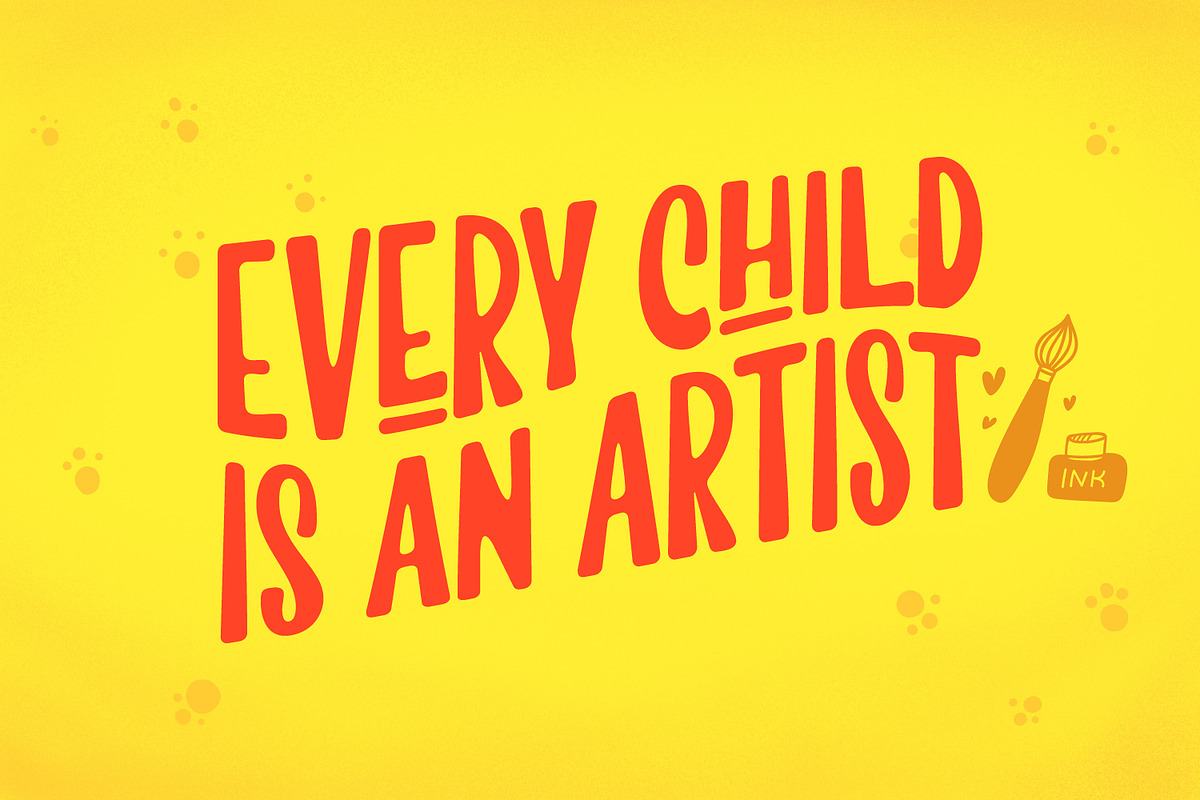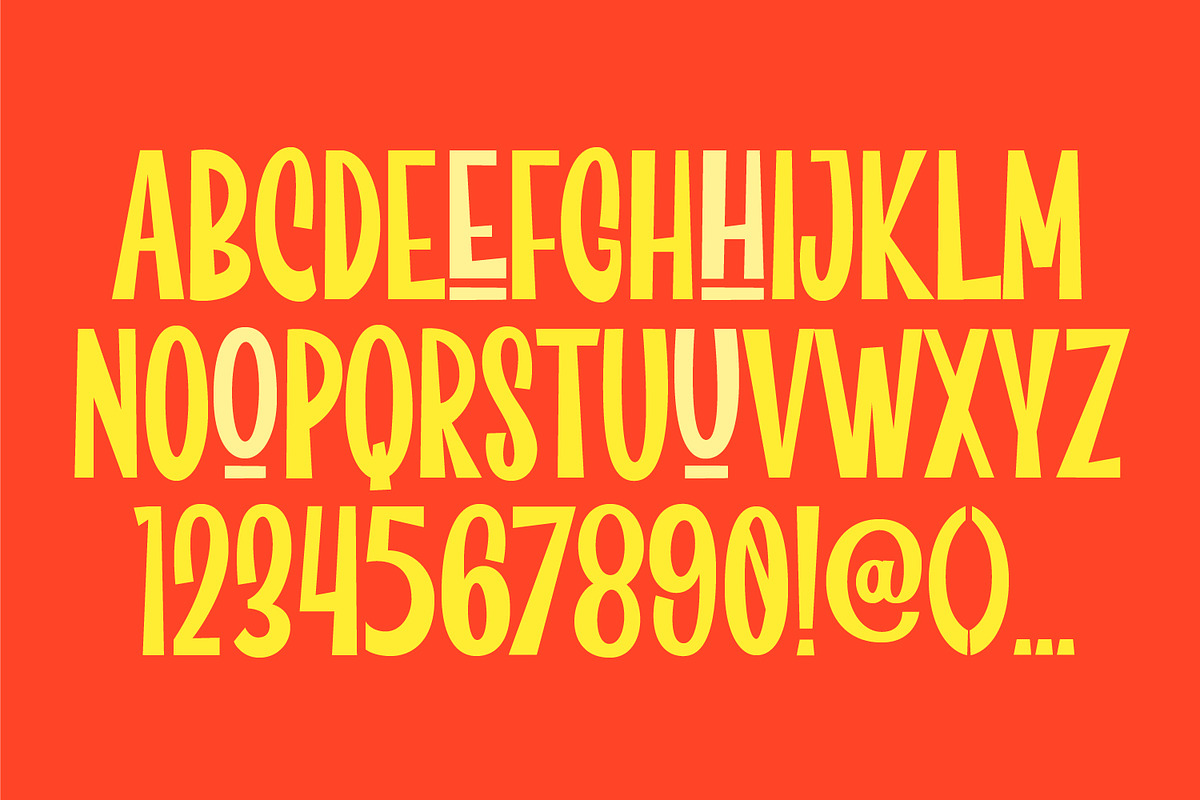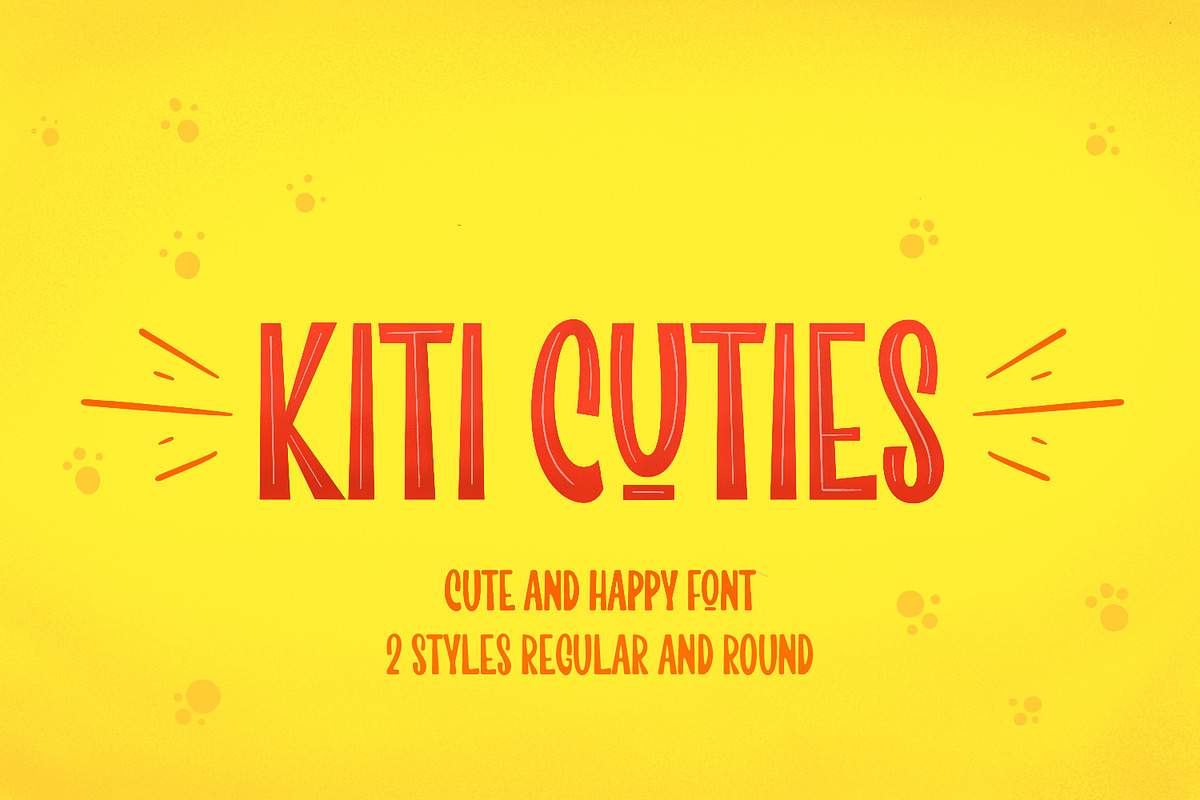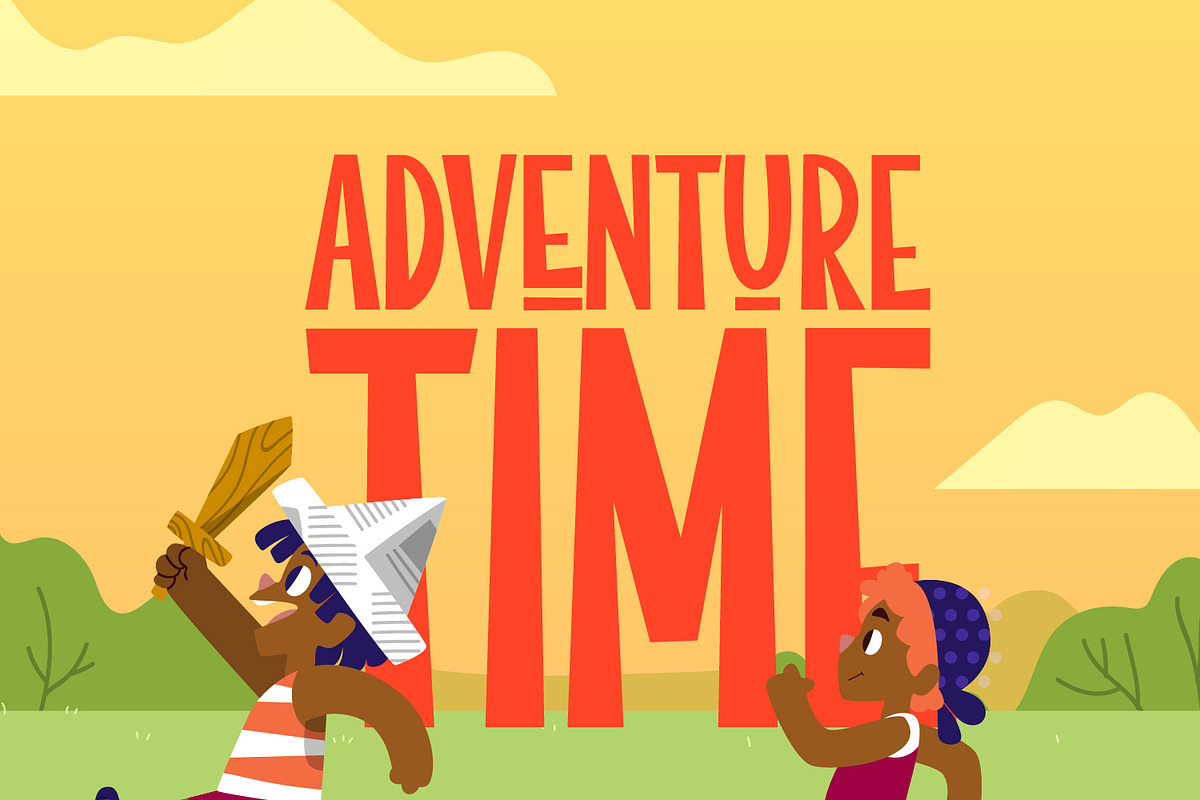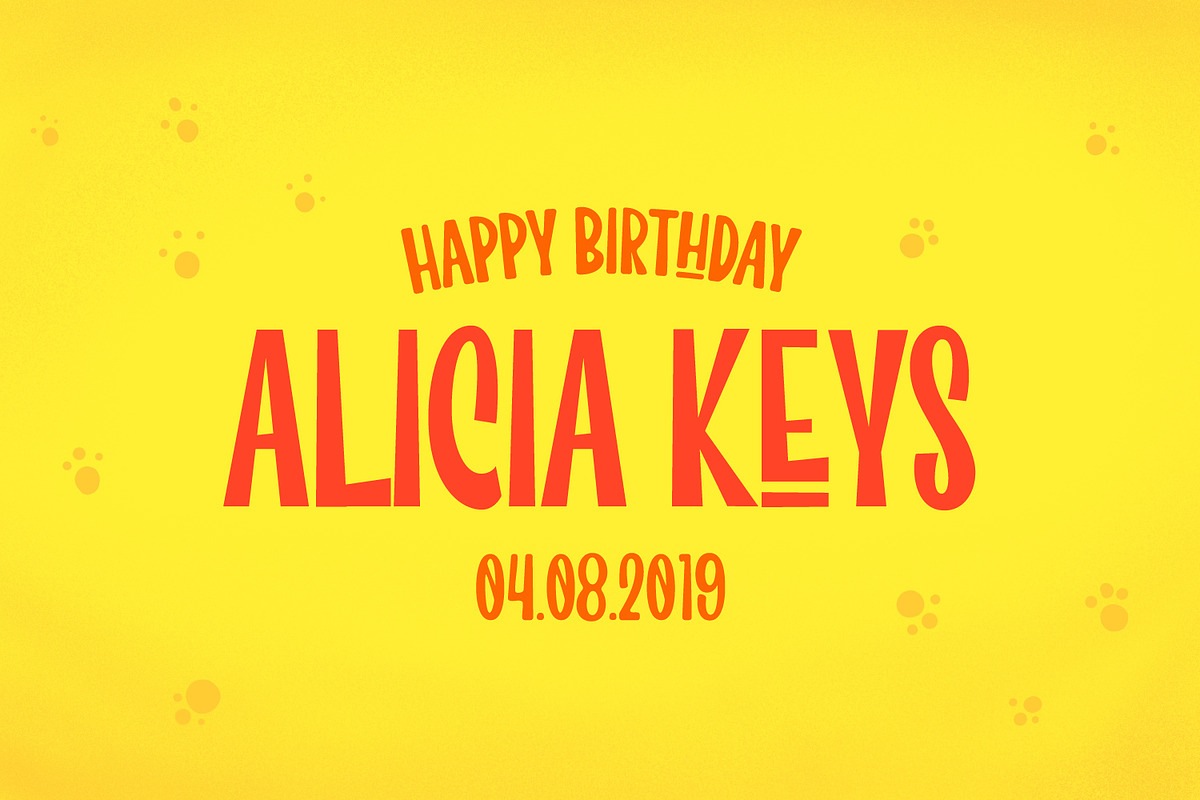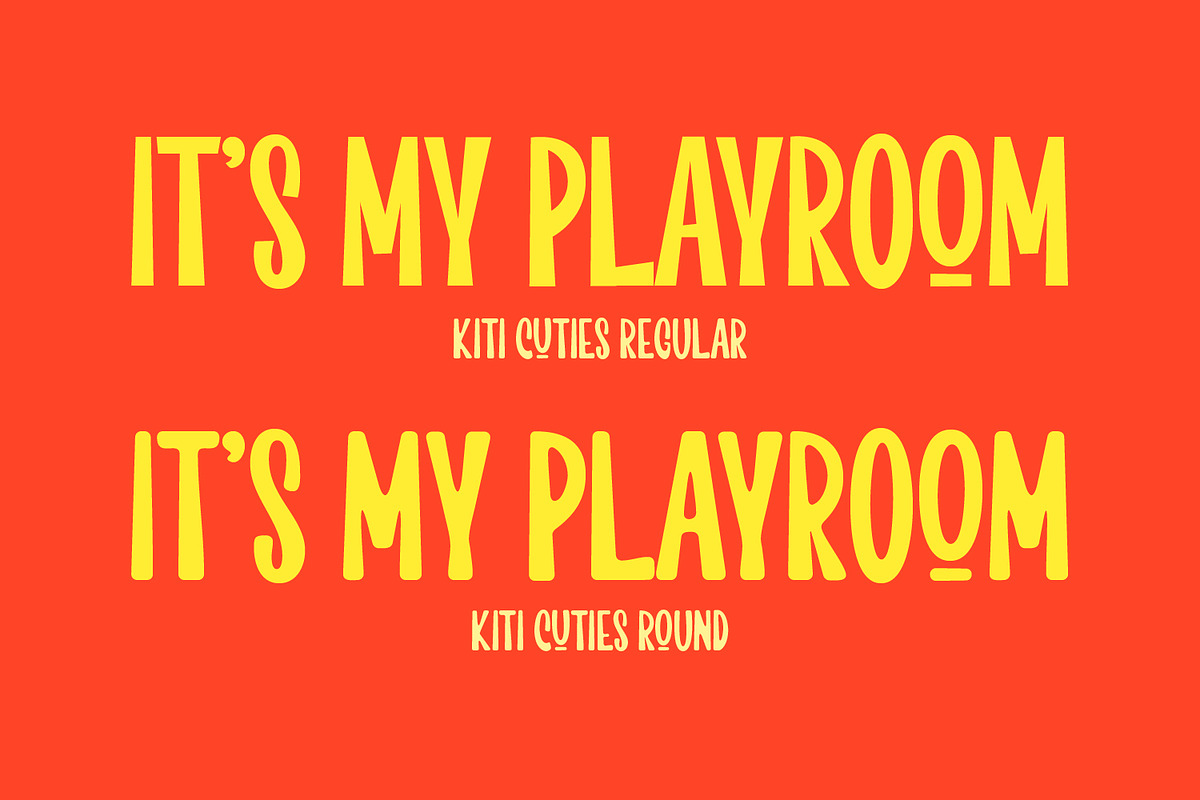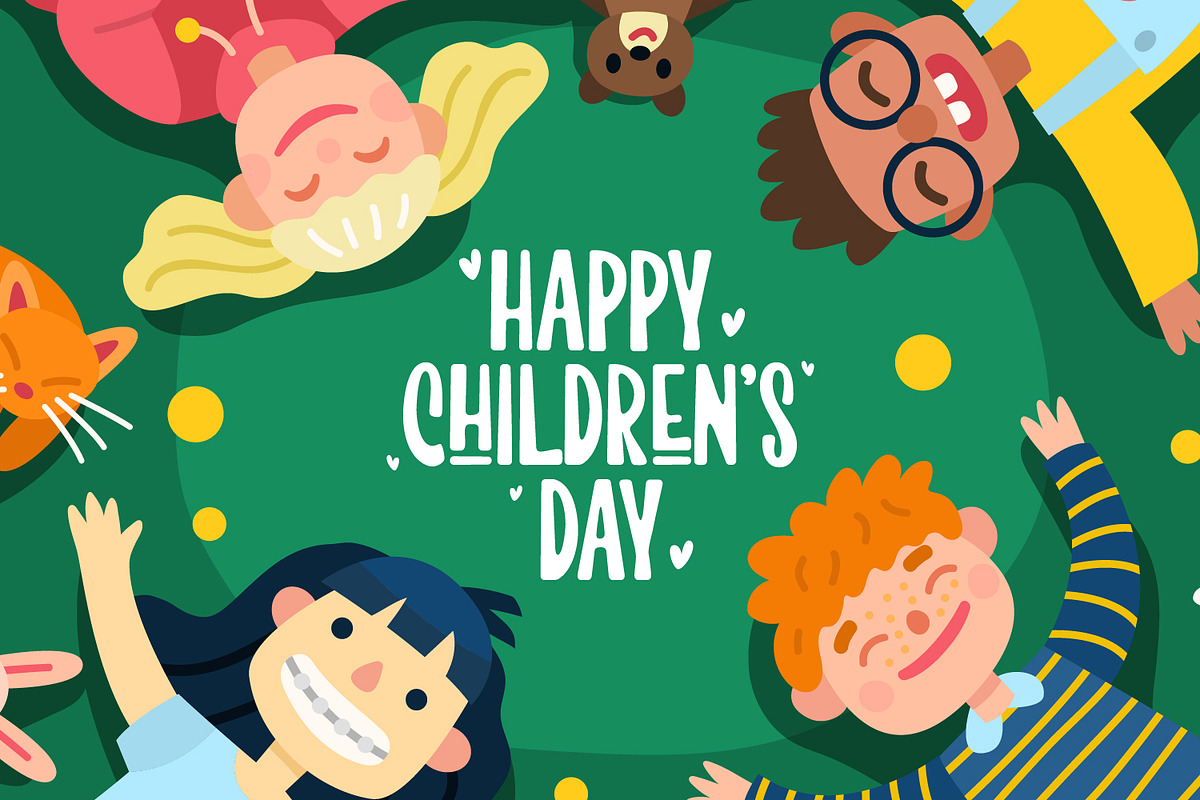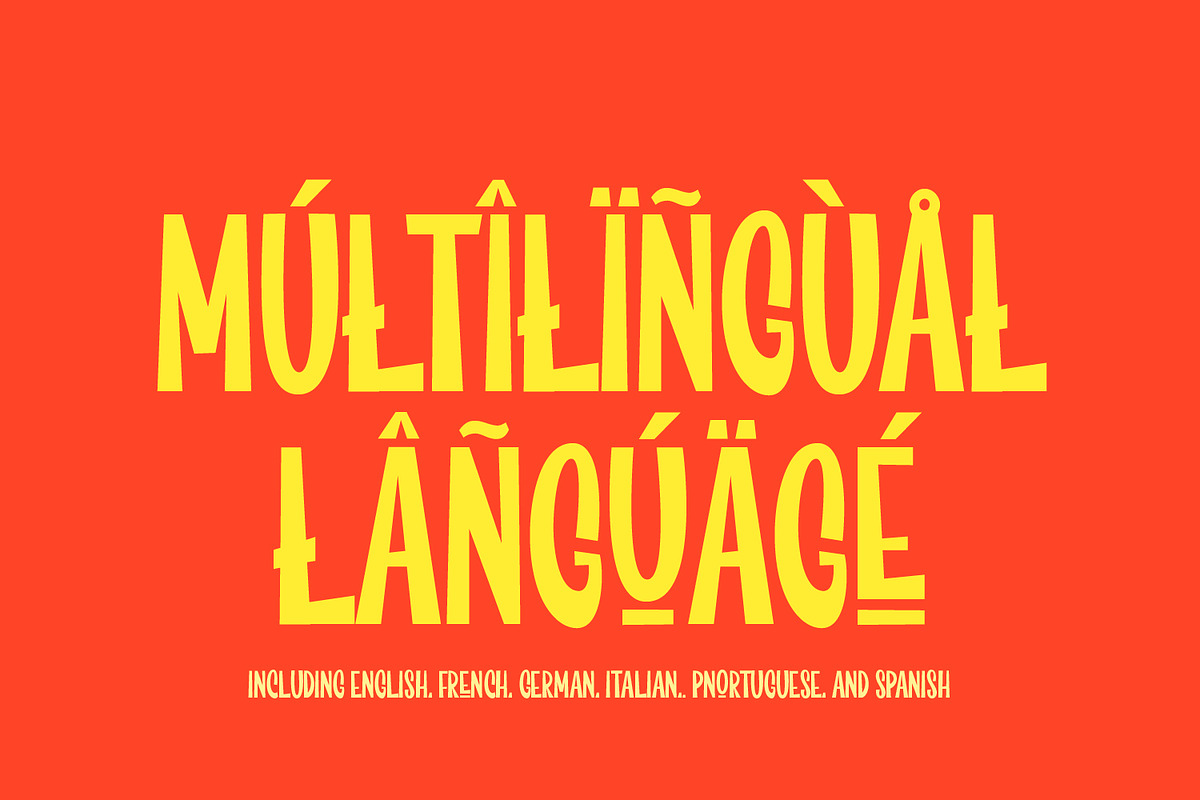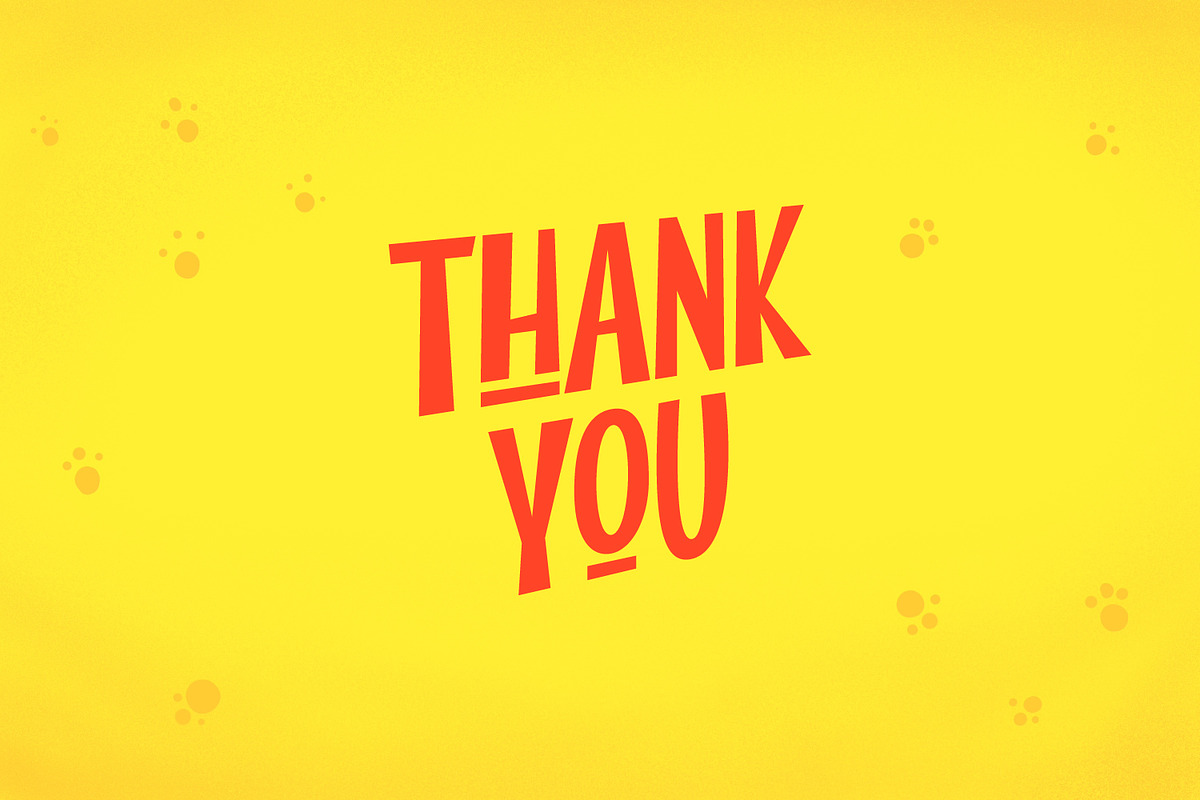
Kiti Cuties
Hi, i want to introduce my font Kiti Cuties. Kiti Cuties is a playful sans serif font, Kiti Cuties is a allcaps font with 4 variations letter in lowercase e,h,o,u that makes your design looks more cheerfull. Kiti cuties is made to help you create a kids and fun theme design such as birthday card, baby shower card, greeting card and many more.